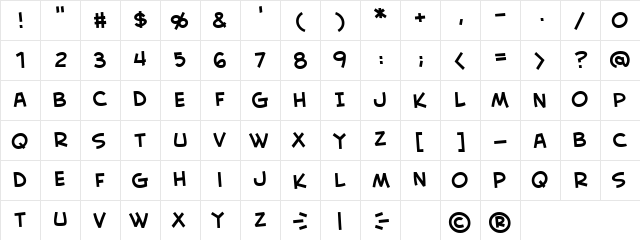
CreativeBlock BB Regular
Design Context for CreativeBlock BB Typeface
CreativeBlock BB is a composed and adaptable typeface that performs quietly and consistently across a wide range of design contexts.